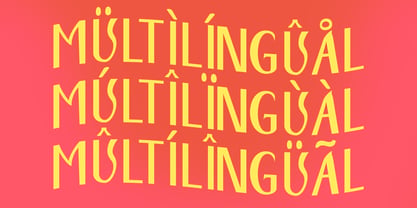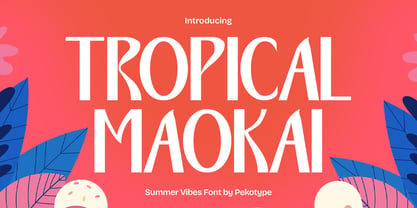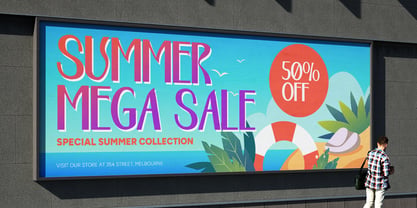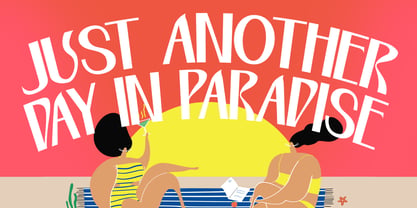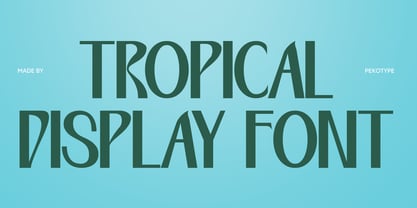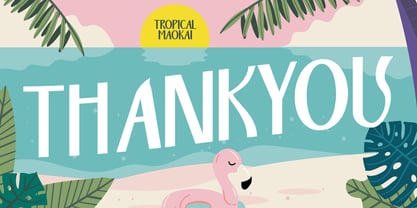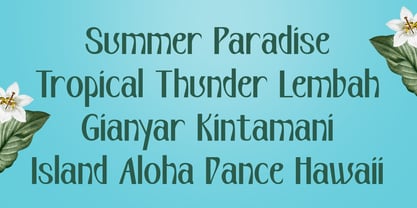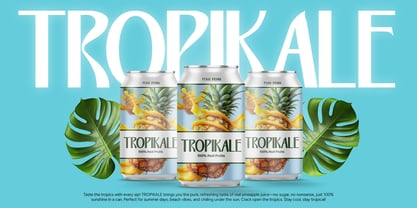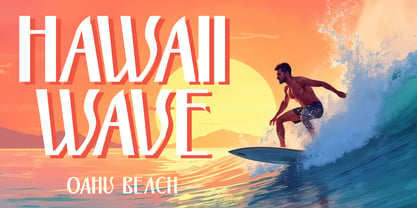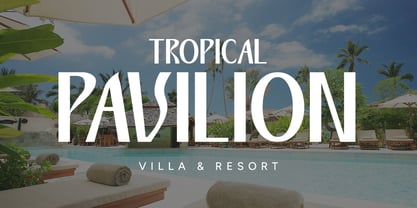
Tropical Maokai
par Pekotype
La famille de polices Tropical Maokai a été conçue par Galang Bryan et publiée par Pekotype. Tropical Maokai contient 1 styles. En savoir plus sur cette famille
TROPICAL MAOKAI is a bold and playful display font inspired by the fun and relaxing vibe of summer. With its groovy retro style and eye-catching letterforms, it’s perfect for logos, branding, packaging, posters, social media graphics, and tropical-themed projects. Designed to bring warmth, energy, and personality to your work, TROPICAL MAOKAI helps create designs that feel fresh, vibrant, and full of holiday spirit.
Concepteurs: Galang Bryan
Fonderie: Pekotype